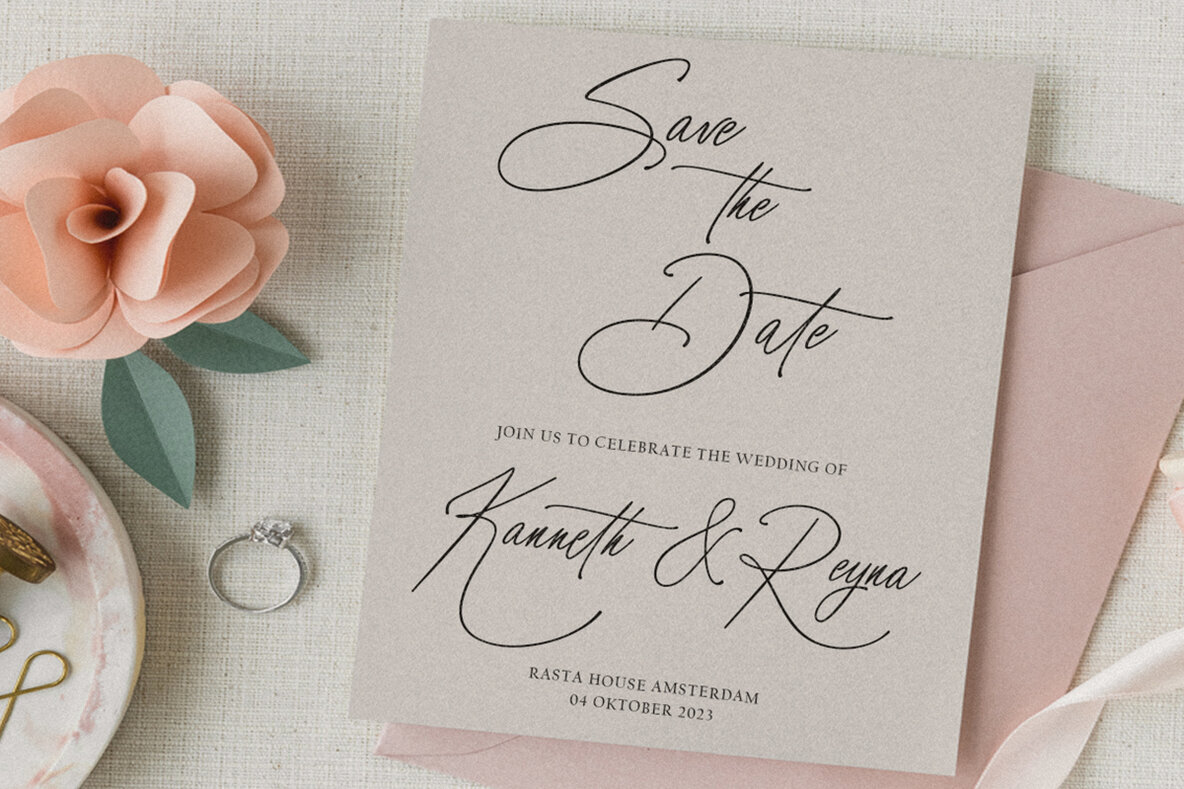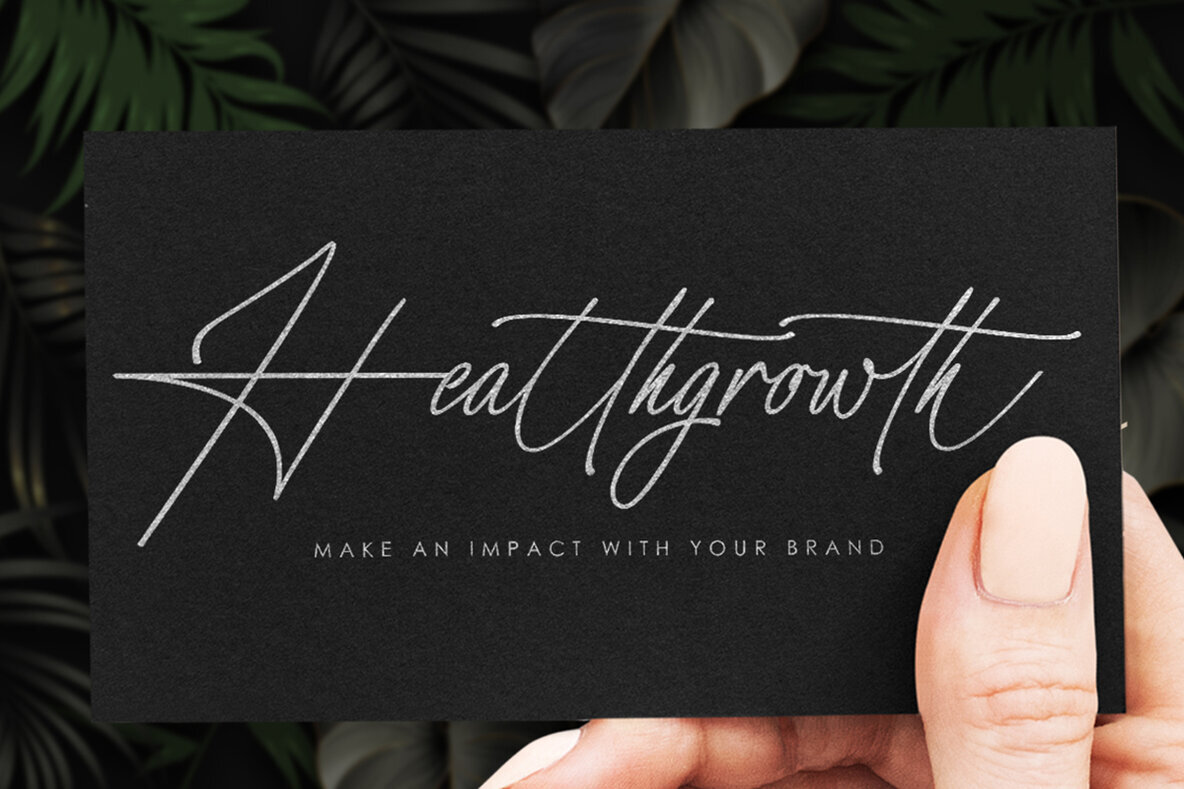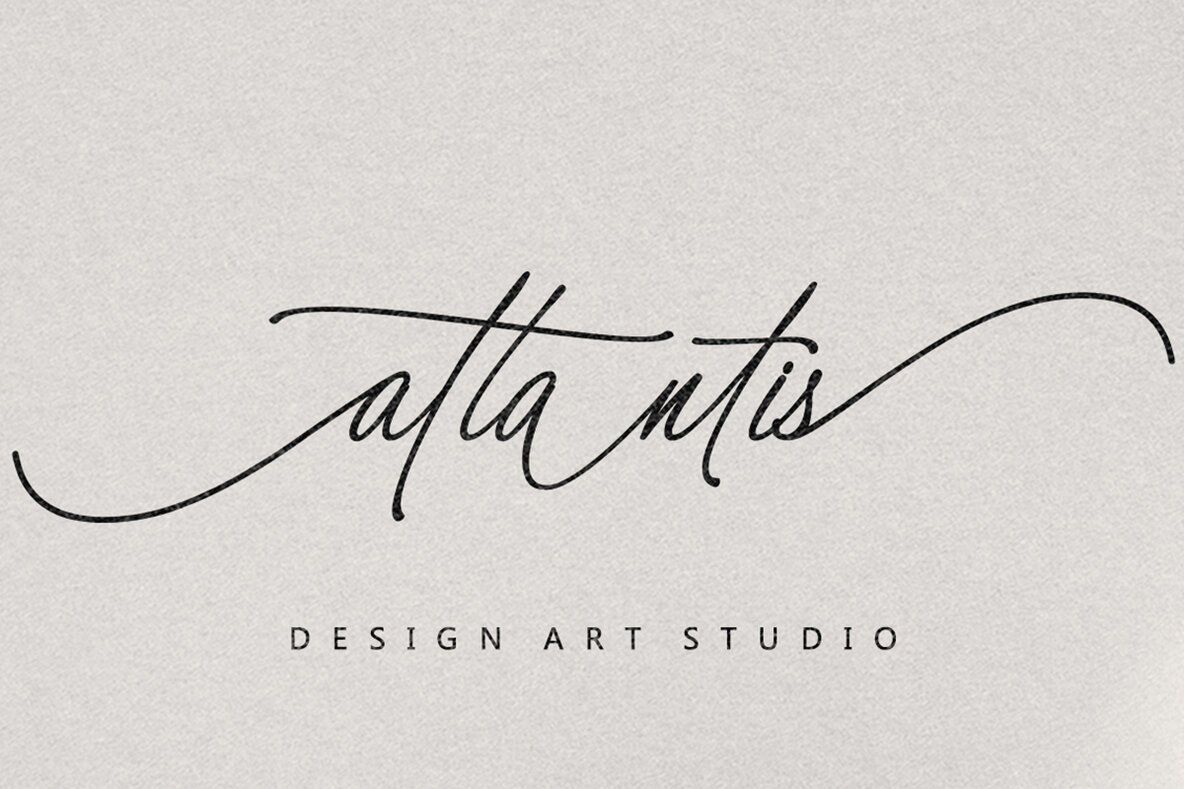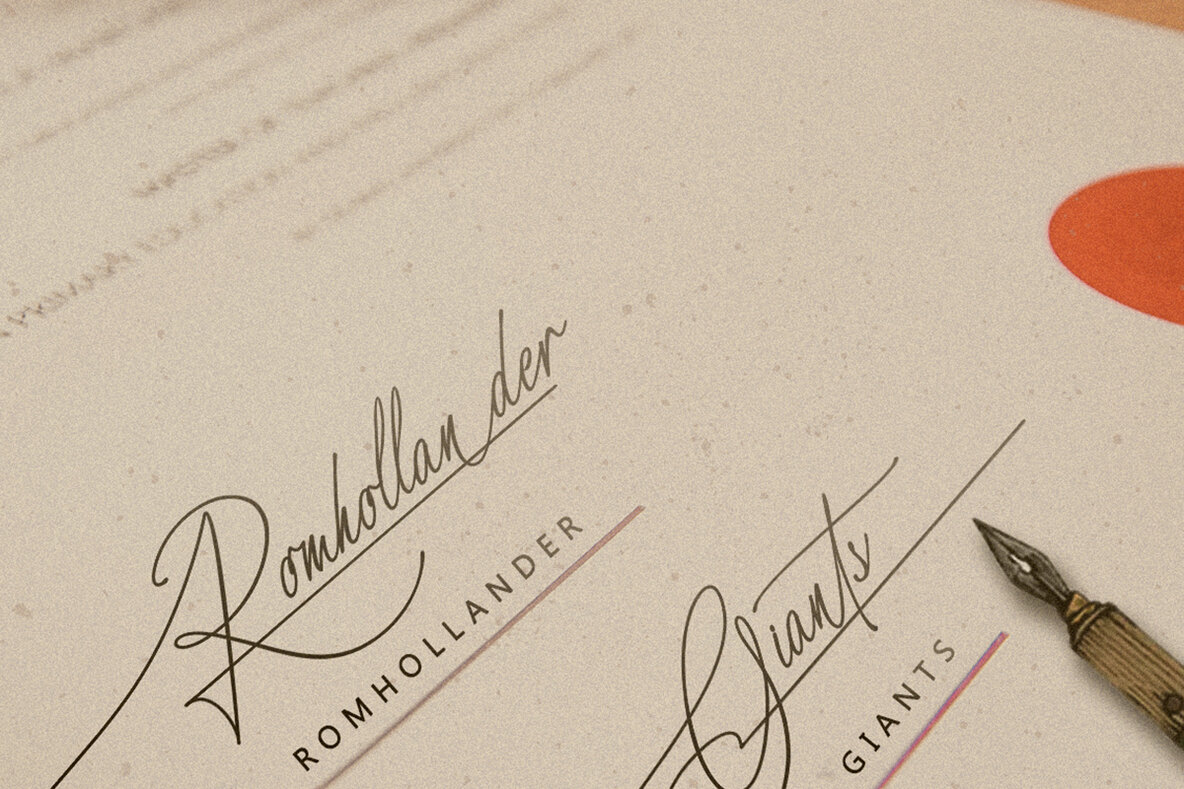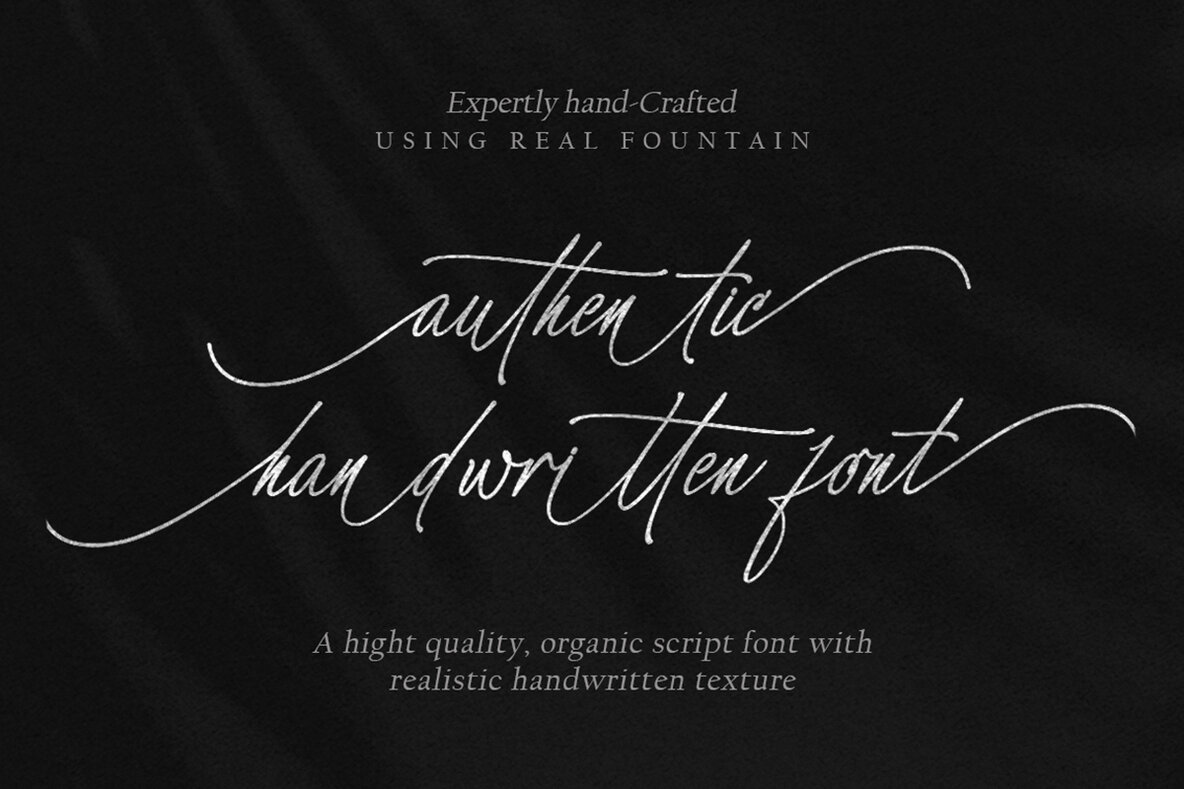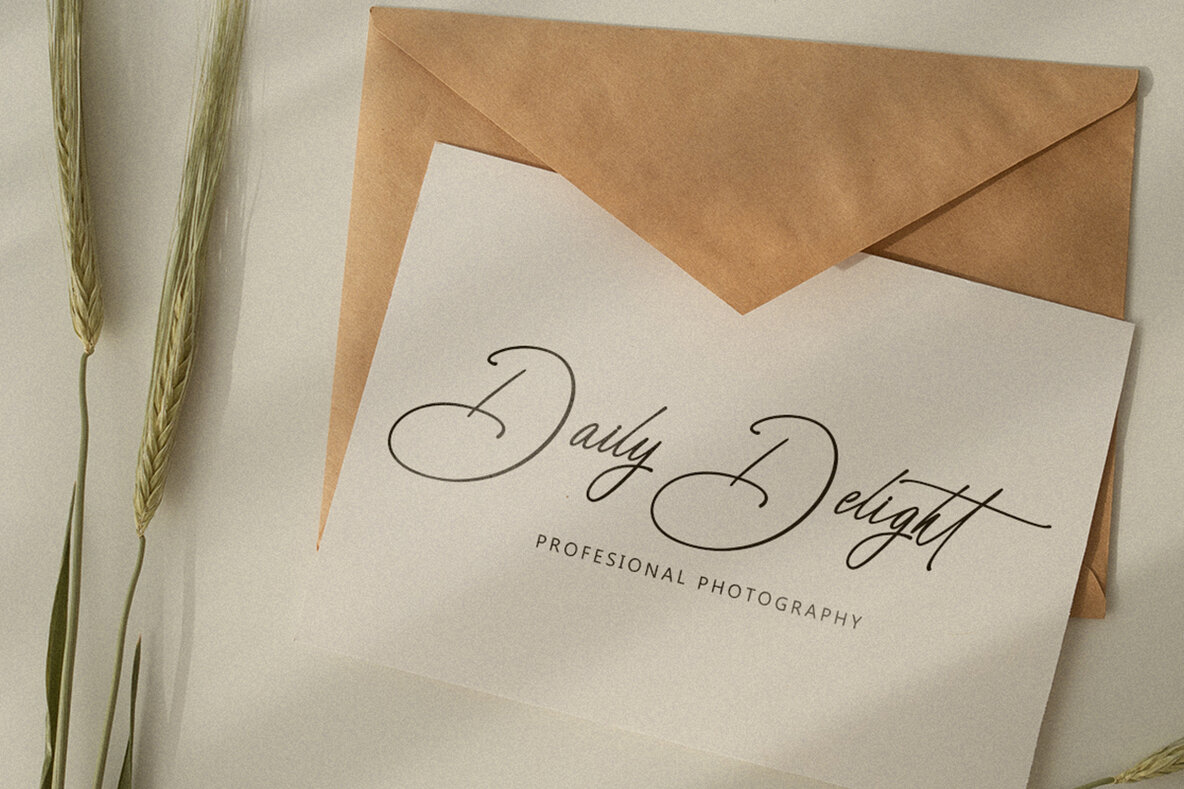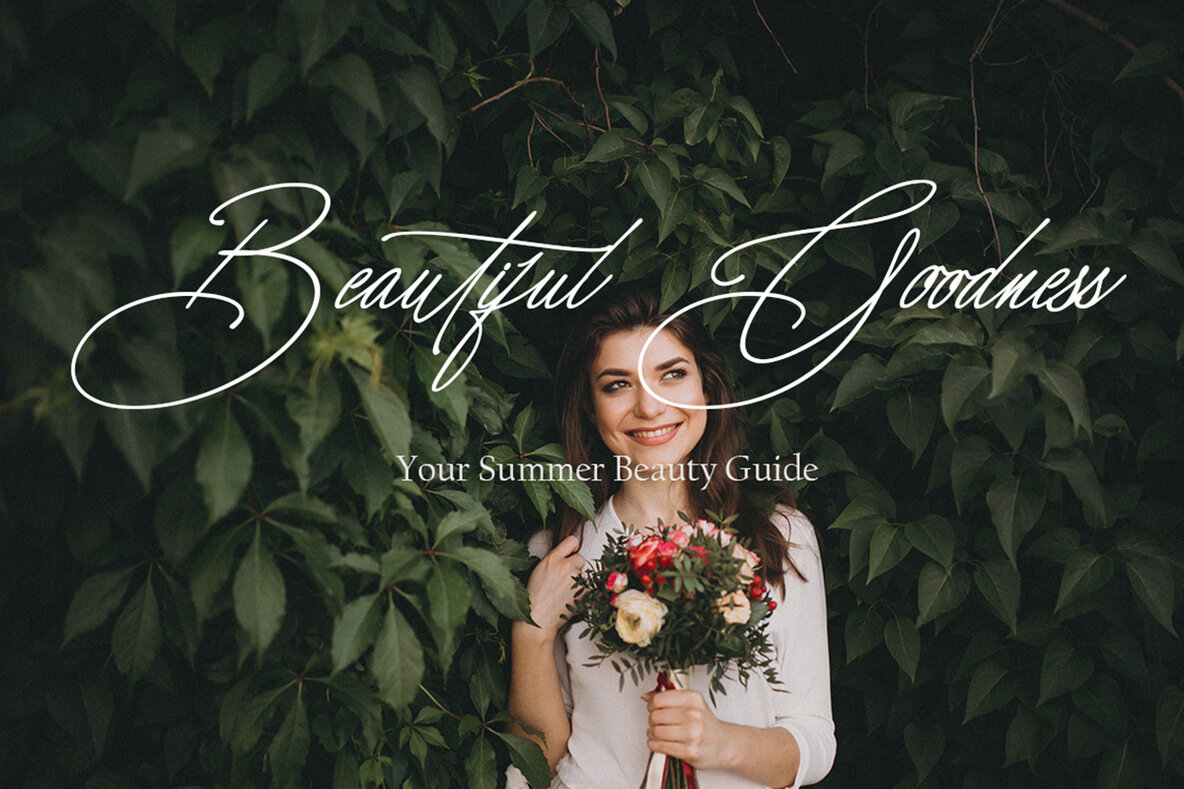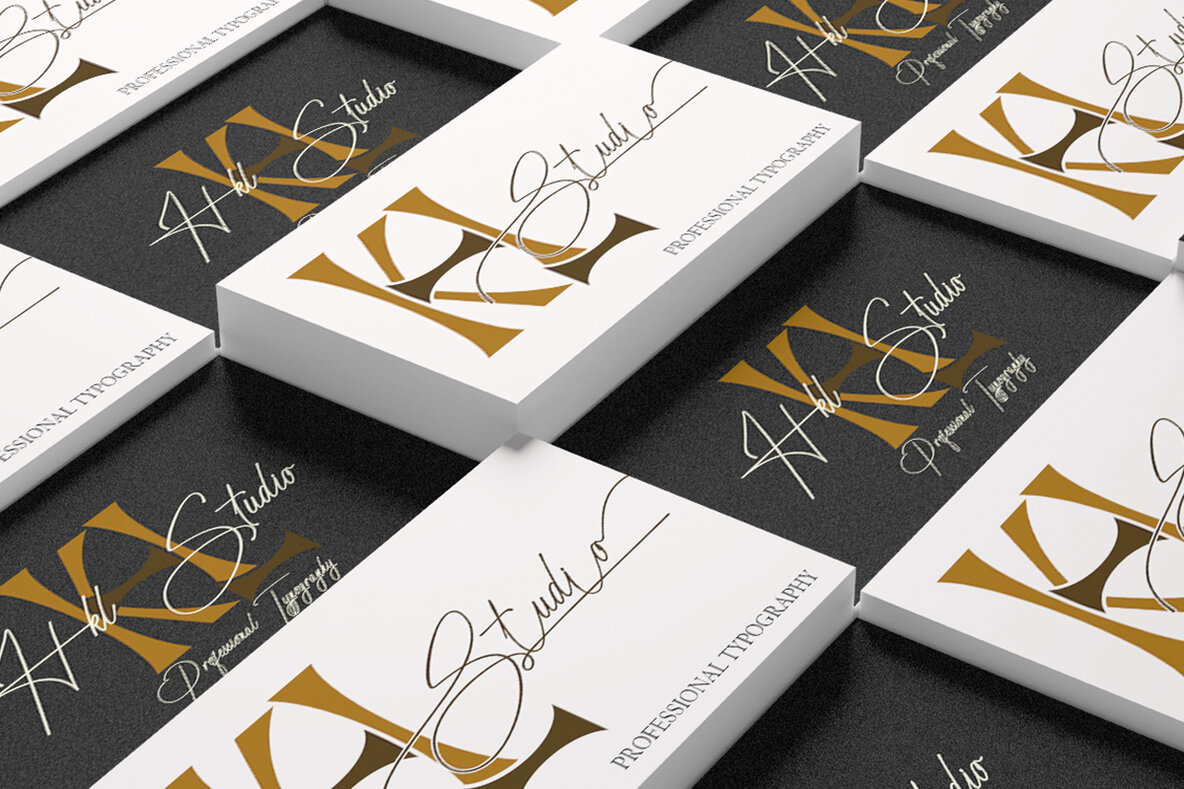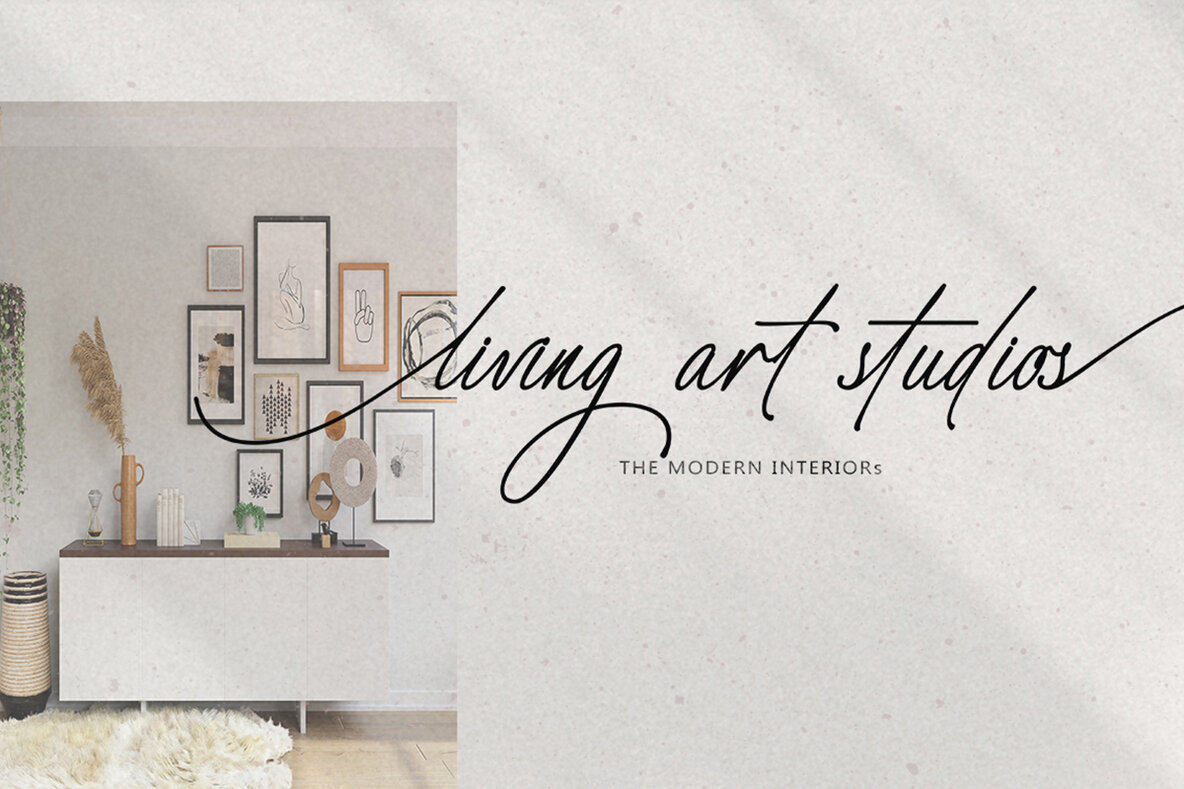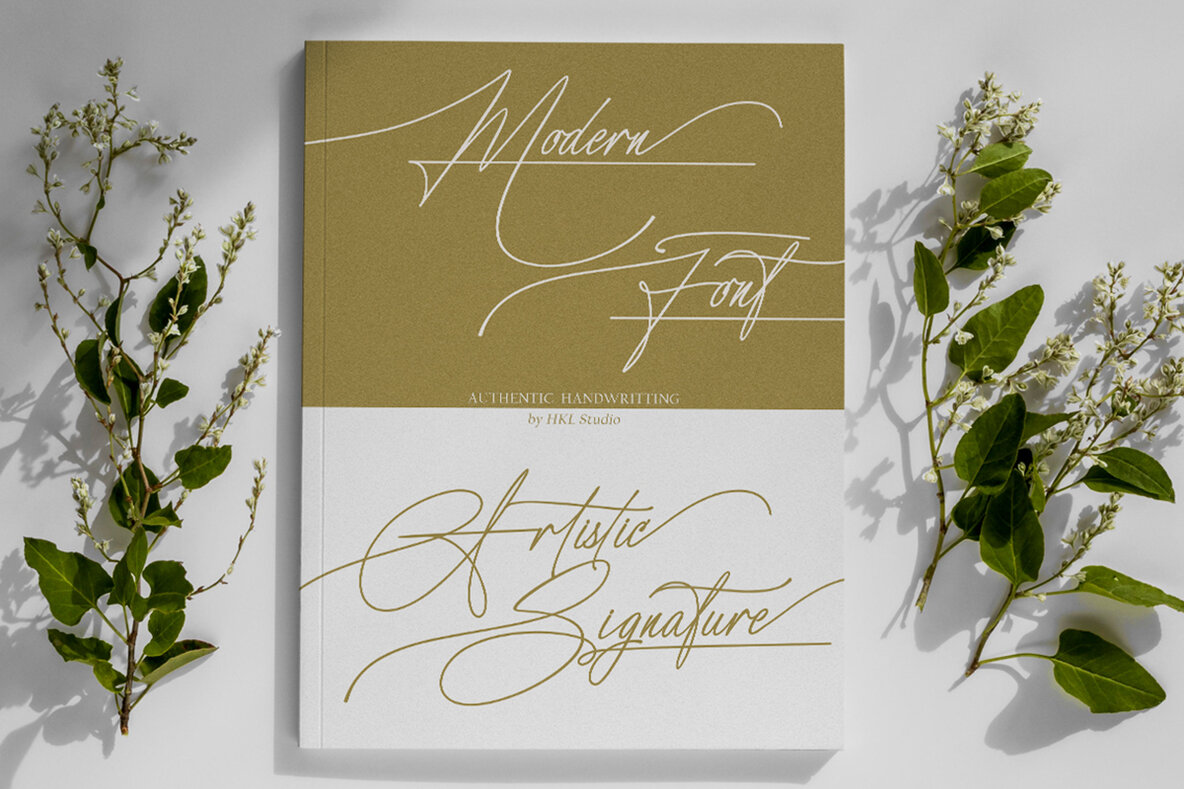
Artistic Signature Font
Artistic Sigature
Artistic Signature is a modern, handwritten font with a magical emphasis. This font is perfect for creating signature logos and watermarks for photography studios or wedding invitations, best for signatures or initial logo branding. Artistic Signature includes a full set of beautiful handwritten upper and lower case letters, numbers, various punctuation and binding. All lowercase letters including initial and final strokes, have 54 bindings that give a realistic handwriting style. To use Pretty Swash, you need a program that supports OpenType features such as Adobe Illustrator CS, Adobe Photoshop CC, Adobe Indesign and Corel Draw.